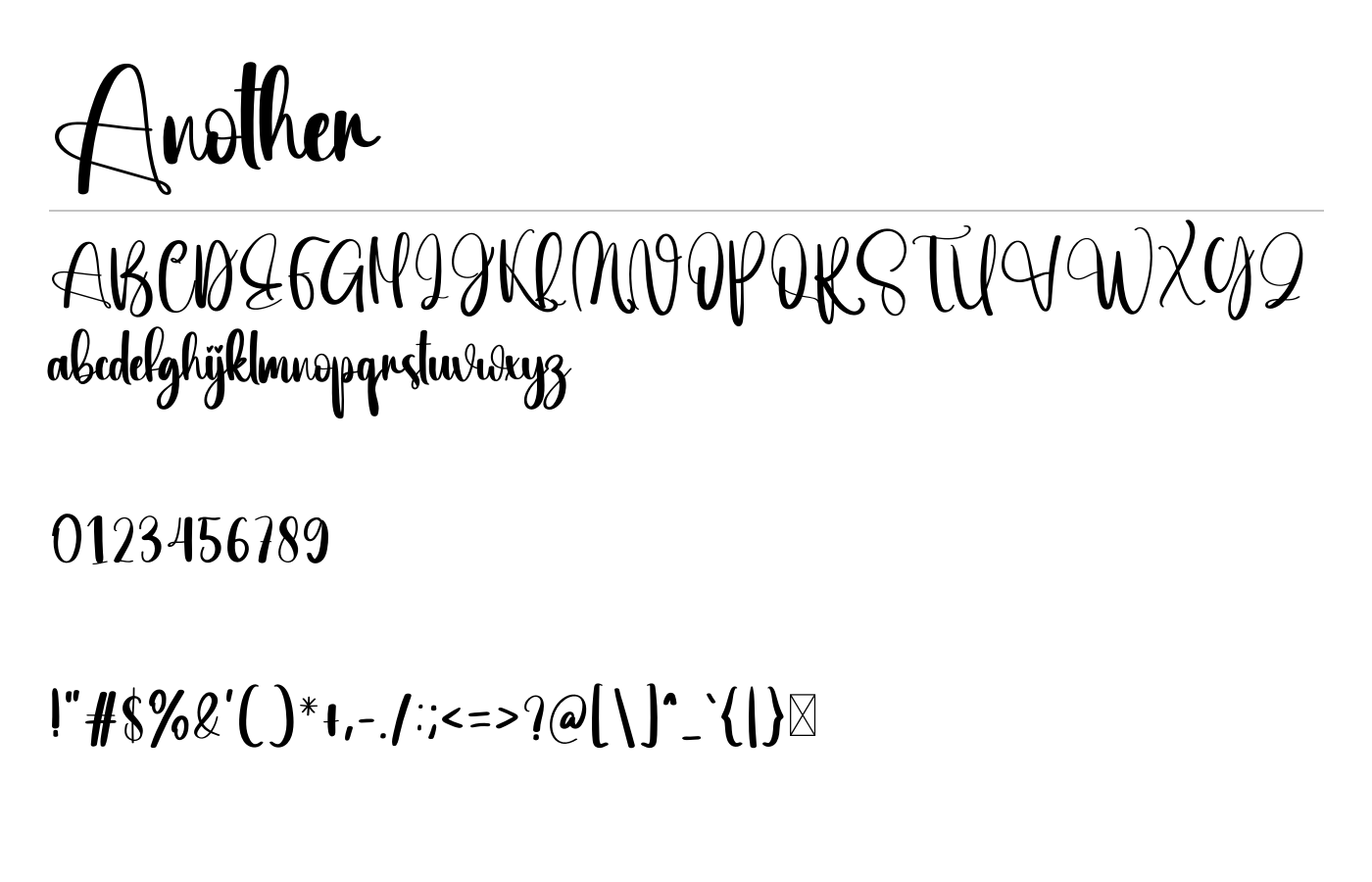
Another Font is a playful and elegant script typeface with a casual, handwritten feel. It features tall, flowing letterforms with varying stroke thickness, combining smooth curves and unique loops that add personality and charm. Ideal for creative branding, invitations, and stylish headlines, it brings a warm, personal touch to any design.
Another Font